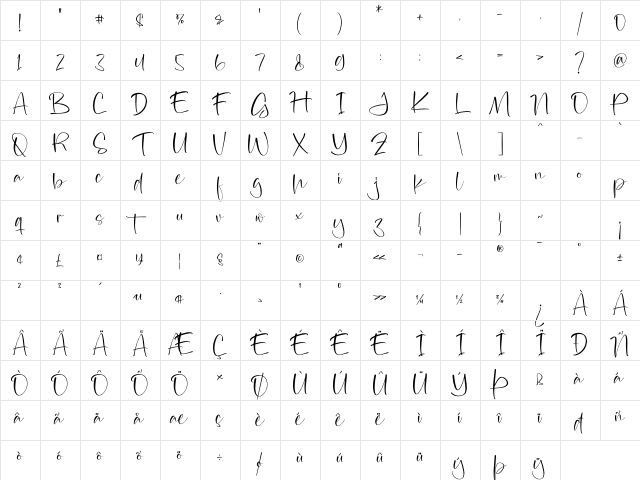
Yasintha Regular Free Font
Yasintha Regular
Foundry: Perspectype Studio
Designer: Heru Utama Putra
Design Context for Yasintha
Yasintha is a composed and adaptable typeface that performs quietly and consistently across a wide range of design contexts.